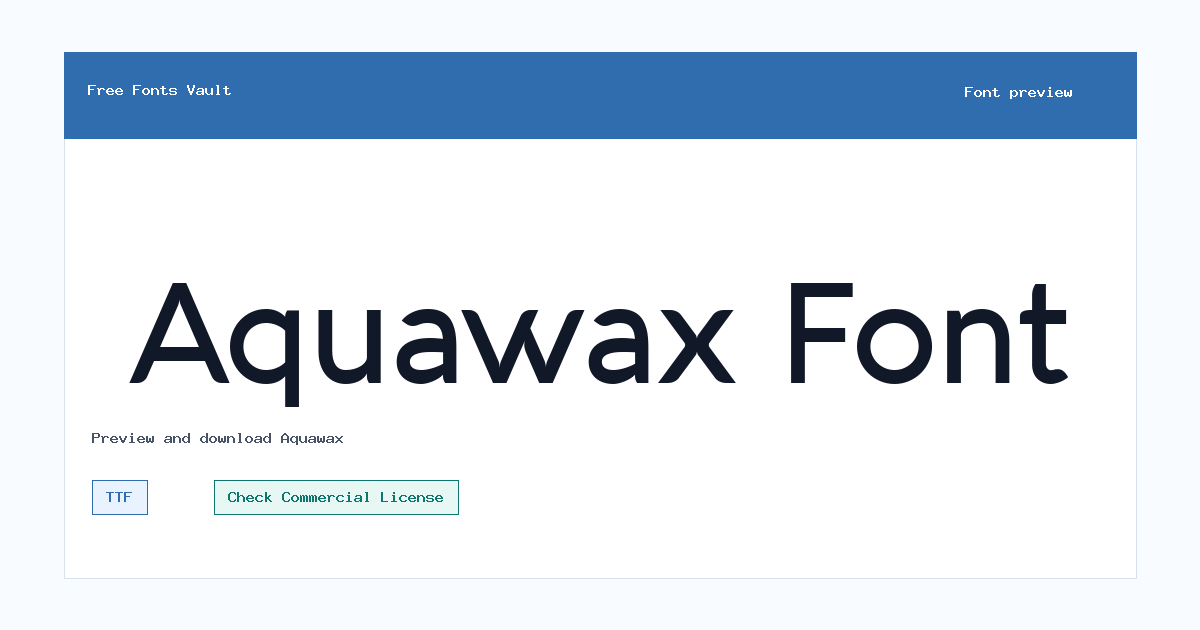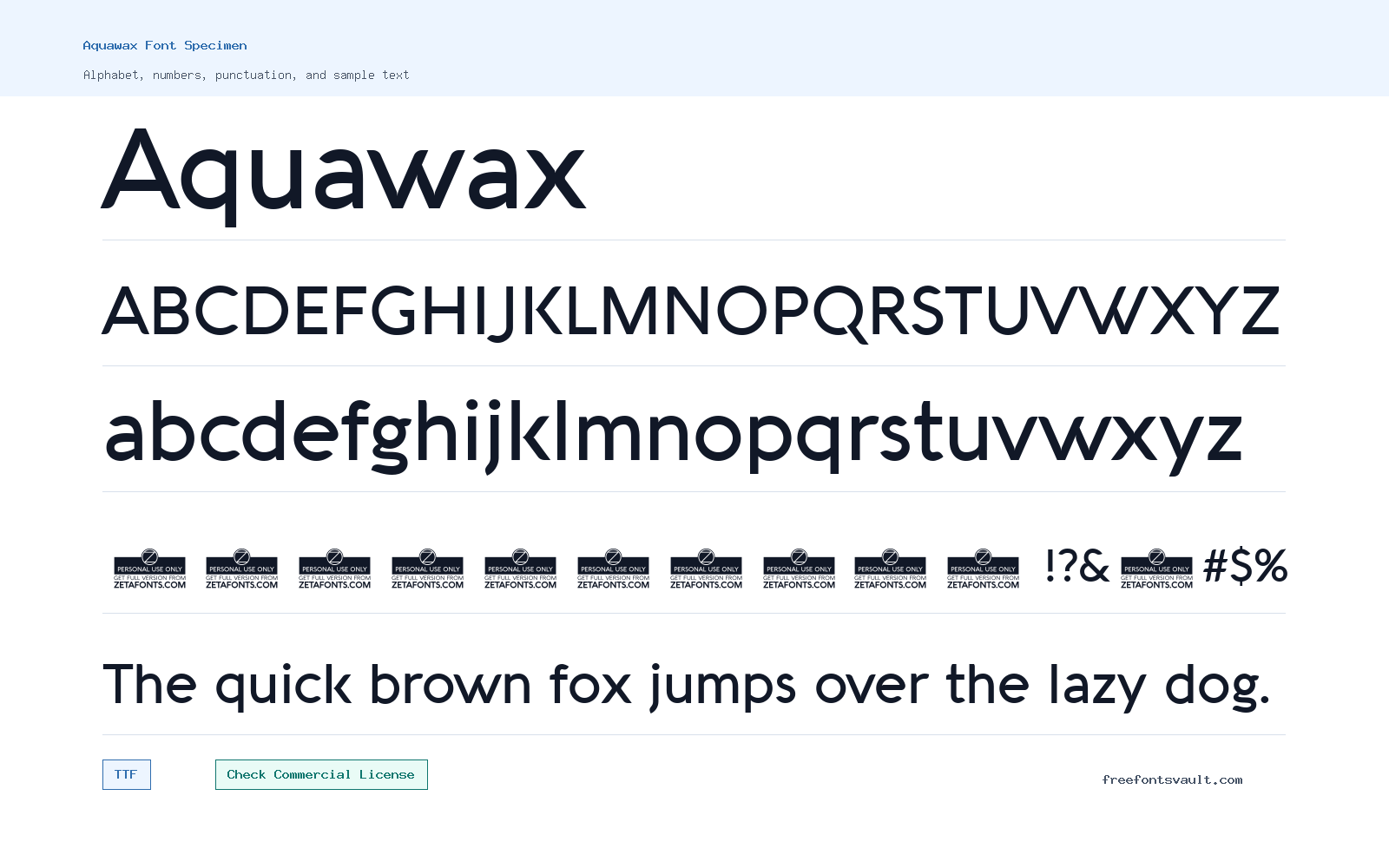
Aquawax
- Designer Francesco Canovaro
- Foundry Francesco Canovaro
Aquawax is a font family credited to Francesco Canovaro, offered here in TTF format with Light, Medium, and Black weights for personal preview and non-commercial projects.
About Aquawax
Aquawax gives you three weight choices: Light for a softer setting, Medium for balanced text, and Black for heavier titles or short display lines. Because the family comes as separate TTF files, you can test each weight in the preview and decide which one fits your layout before downloading.
Use Aquawax where you need a compact font choice with clear weight contrast, such as personal posters, school graphics, practice branding layouts, social mockups, or title experiments. For best results, try your own words in the preview, check spacing in uppercase and lowercase, and compare the lighter and heavier styles at the exact size you plan to use.
Aquawax includes medium, black, and light styles, giving you a useful spread for hierarchy. The light style can feel cleaner and more open, the medium cut is a practical middle choice, and the black style works better for short, strong display text.
- Short headings, poster text, and preview-based typography tests